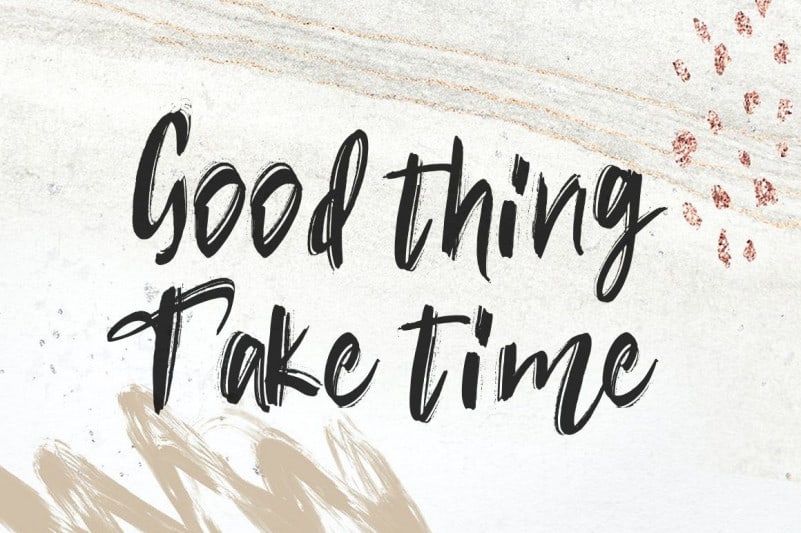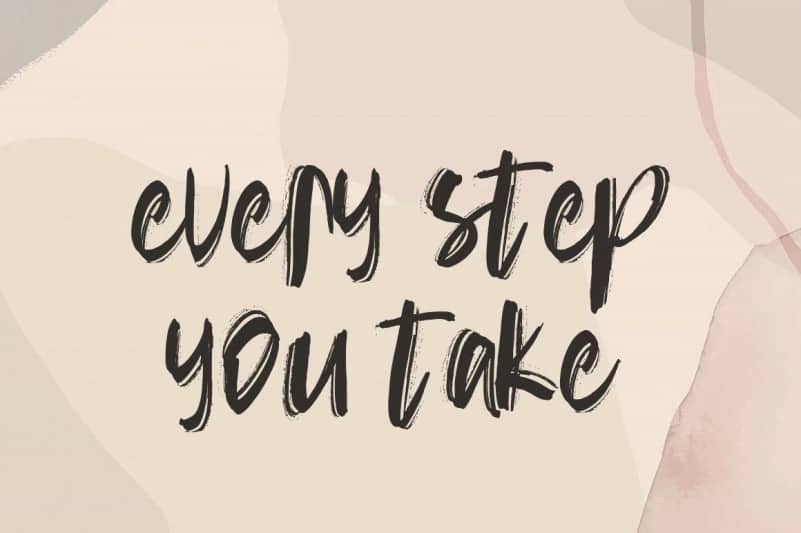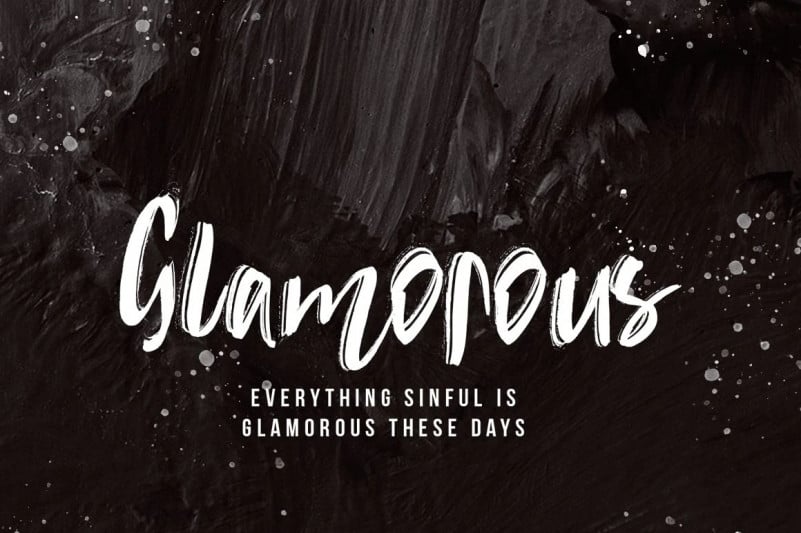
Rubin Key Brush Font
Rubin Key Brush Font is modern bold script that perfect for any modern design. It’s designed and shared by Vultype Co. It’s a beautiful handwritten font, created with the help of a unique brush pen. You can use it for your brand, product, music, clothing, apparel, or advertisement. Fall in love with its incredibly versatile style and use it to create spectacular designs!